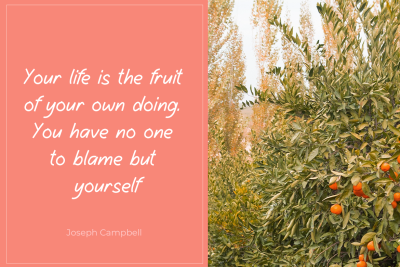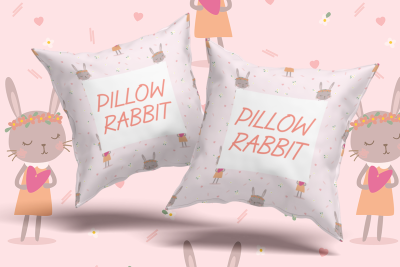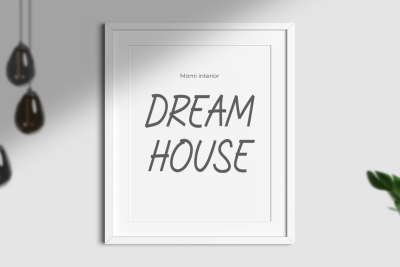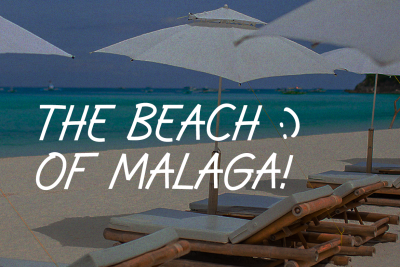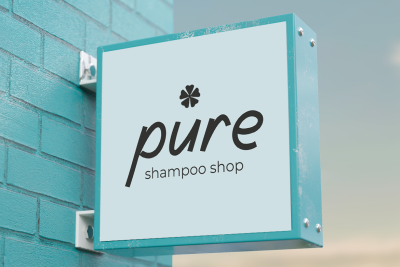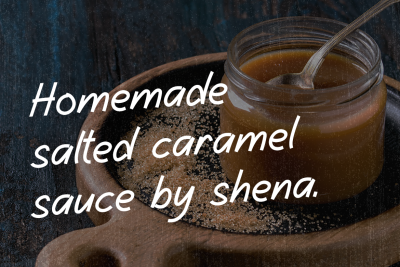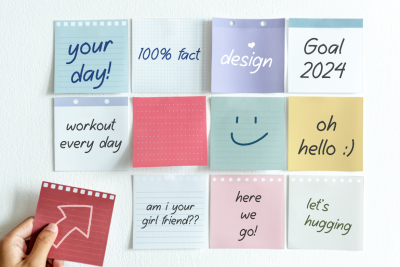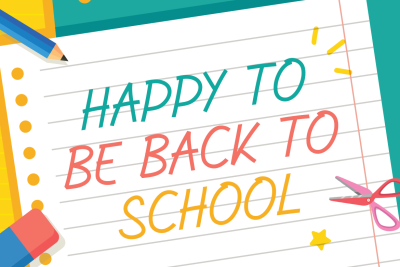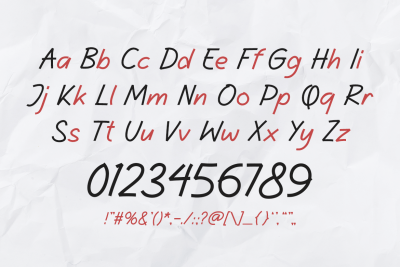
Handwriting Font Quick Note is a casual and natural-looking script font that captures the essence of handwritten notes. Designed to mimic the fluid strokes of a pen, this font offers a relaxed yet legible style, making it perfect for both professional and personal use. The smooth curves and slight slant give it a dynamic, authentic feel, similar to jotting down thoughts in a notebook.
This font strikes the perfect balance between informal and functional, making it ideal for creative projects that require a touch of personality. The natural variations in letterforms create an organic look, ensuring that each word appears as if it were written by hand. Whether used for digital notes, casual branding, or instructional materials, Handwriting Font Quick Note delivers an effortless, approachable aesthetic.
Additionally, this font is optimized for readability, ensuring that it remains clear and sharp at various sizes. Its versatility makes it suitable for both printed and digital applications. Whether you’re designing greeting cards, educational materials, or social media graphics, Quick Note offers a warm, friendly, and inviting tone.
Who Can Use Handwriting Font Quick Note ?
Handwriting Font Quick Note is ideal for designers, educators, content creators, and small business owners who want to add a handwritten charm to their projects.
For designers, this font works exceptionally well in branding materials, such as logos, packaging, and product descriptions. Its friendly and relaxed style adds a personal touch, making brands feel more approachable and authentic. It is particularly useful for lifestyle brands, stationery, and artisanal businesses.
Educators and students can also benefit from Quick Noteโs legibility and natural flow. Itโs an excellent choice for worksheets, study notes, and instructional materials, making learning more engaging and visually appealing. Whether for classroom use or personal note-taking, this font enhances clarity while maintaining a personal touch.
Content creators and bloggers will find Quick Note valuable for social media graphics, YouTube thumbnails, and informal website text. The handwritten feel makes online content more engaging and relatable, helping creators connect with their audience more effectively.
Small business owners can use this font for promotional materials, thank-you notes, and personalized customer interactions. Whether used in email newsletters, packaging inserts, or signage, Quick Note helps businesses maintain a friendly, down-to-earth image.
In summary, Handwriting Font Quick Note is for anyone looking to bring a human touch to their designs. Whether for professional branding, educational content, or personal projects, this font delivers warmth, personality, and readability in a seamless, handwritten style.